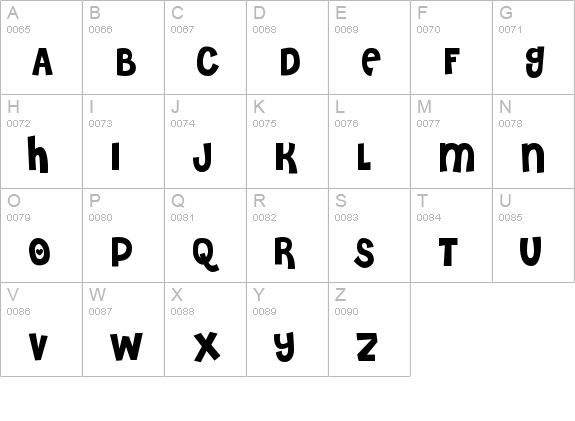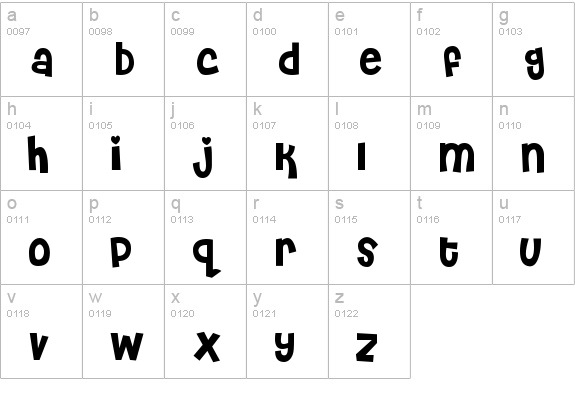
Cheri Font Details
Cheri font is a free-spirited and playful typeface that exudes charm and elegance. Its delicate curves and whimsical letterforms make it perfect for adding a touch of whimsy to any design project. Whether you're crafting invitations, creating a logo, or designing a website, Cheri font will instantly captivate your audience with its unique and stylish aesthetic. What sets Cheri font apart from other typefaces is its versatility and adaptability. It effortlessly transitions from a sophisticated and refined look to a more casual and fun vibe, making it suitable for a wide range of applications. The fluidity of its strokes and the carefully crafted details of each character make Cheri font a true work of art. What's even better is that Cheri font is freely available to download at FontsMarket.com. This means that you can easily access this stunning typeface and start using it in your designs right away. Whether you're a professional designer or just starting out, Cheri font offers you the opportunity to add a touch of elegance and creativity to your work without any financial burden. So why wait? Discover the beauty and versatility of Cheri font today and let your imagination run wild. With its free availability and captivating design, this typeface is sure to become a favorite among designers and creatives alike. Download Cheri font now and unlock a world of endless design possibilities.